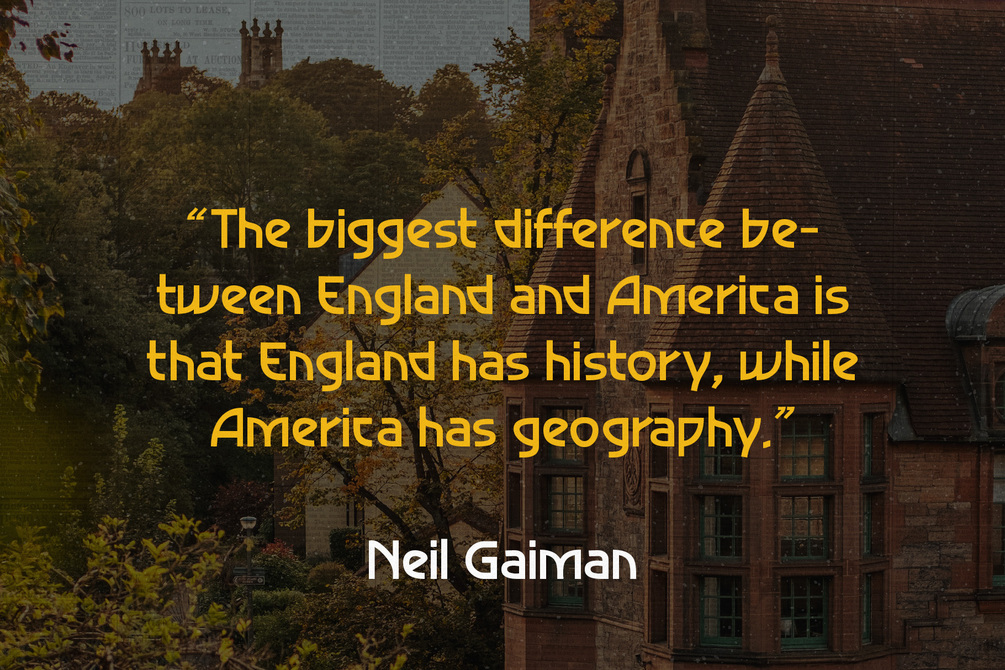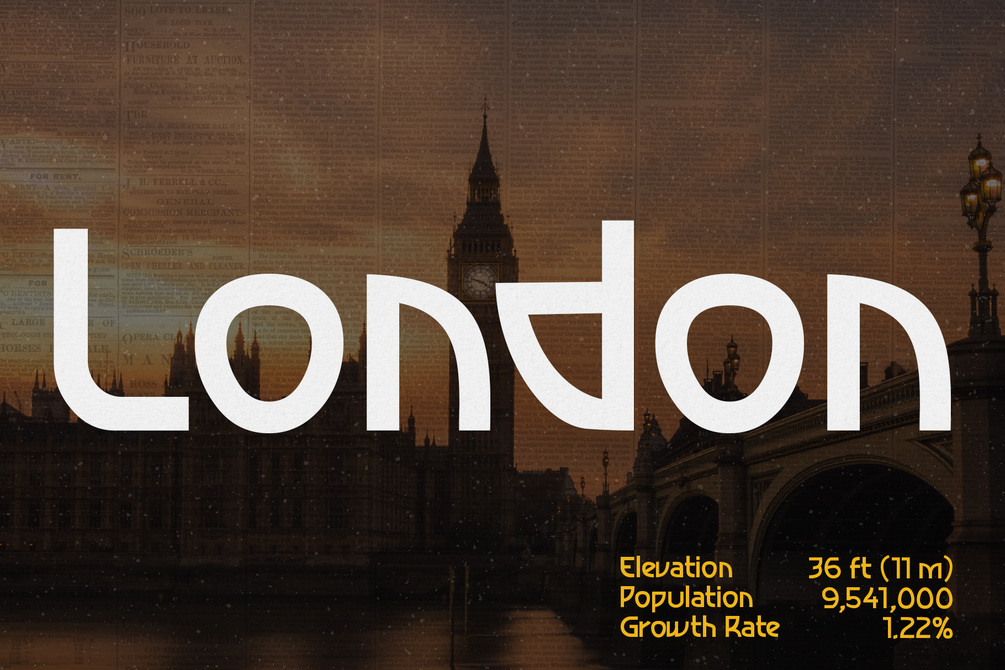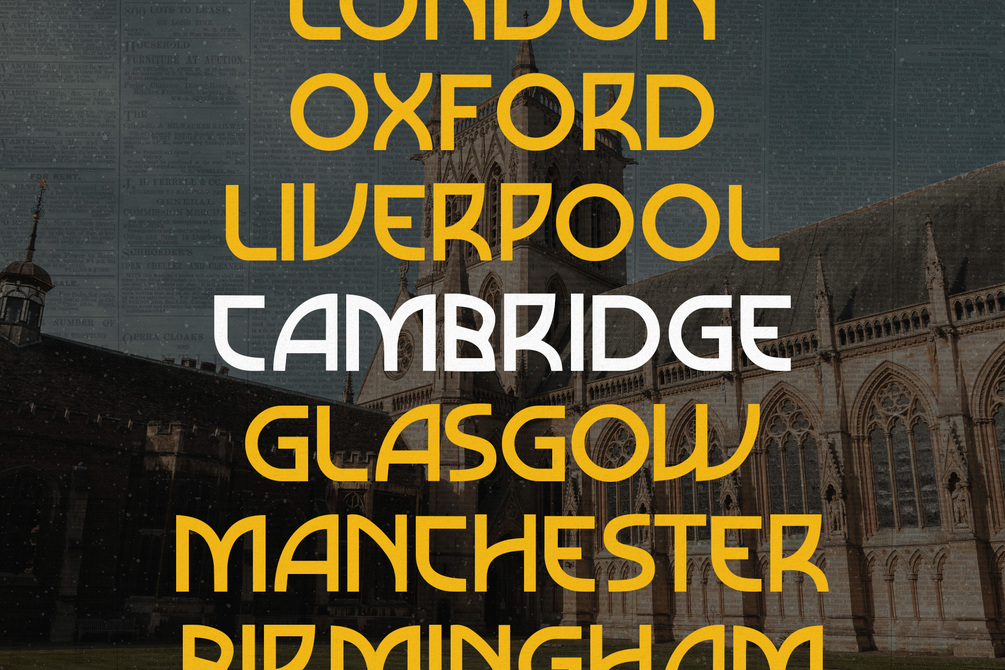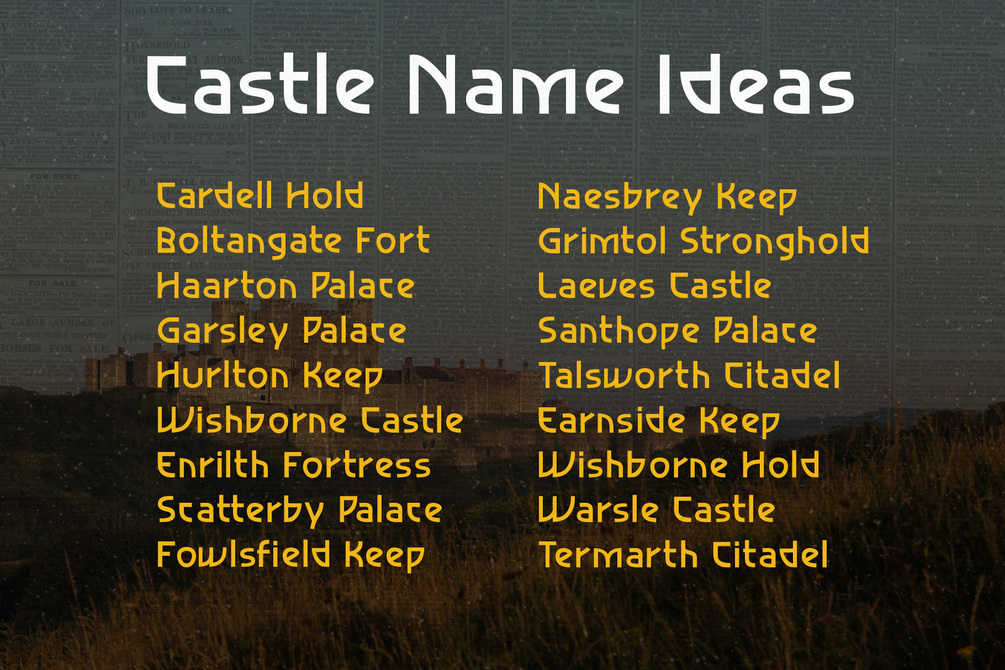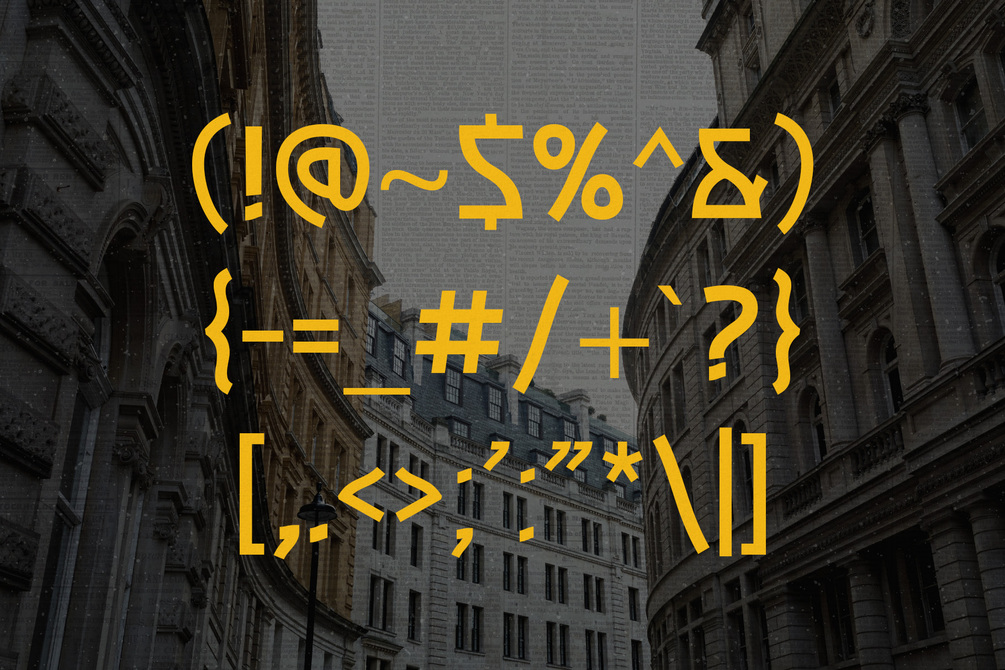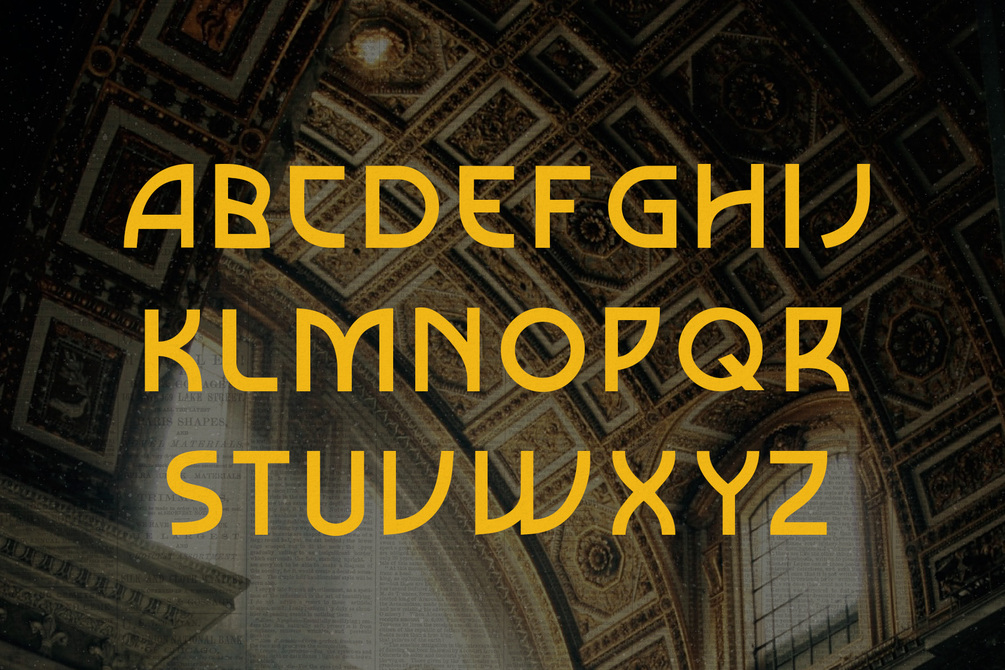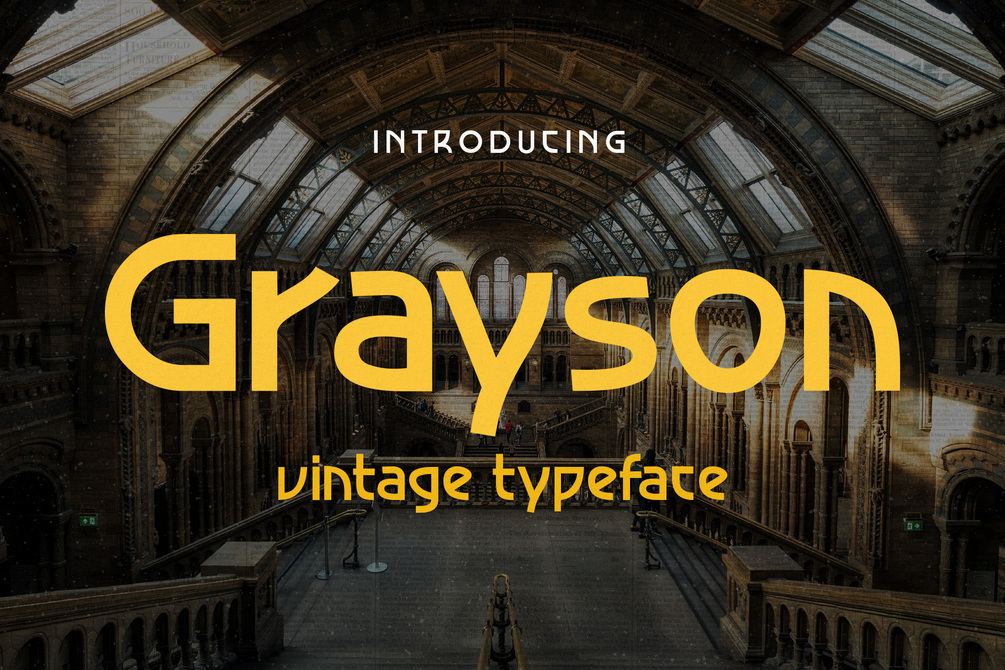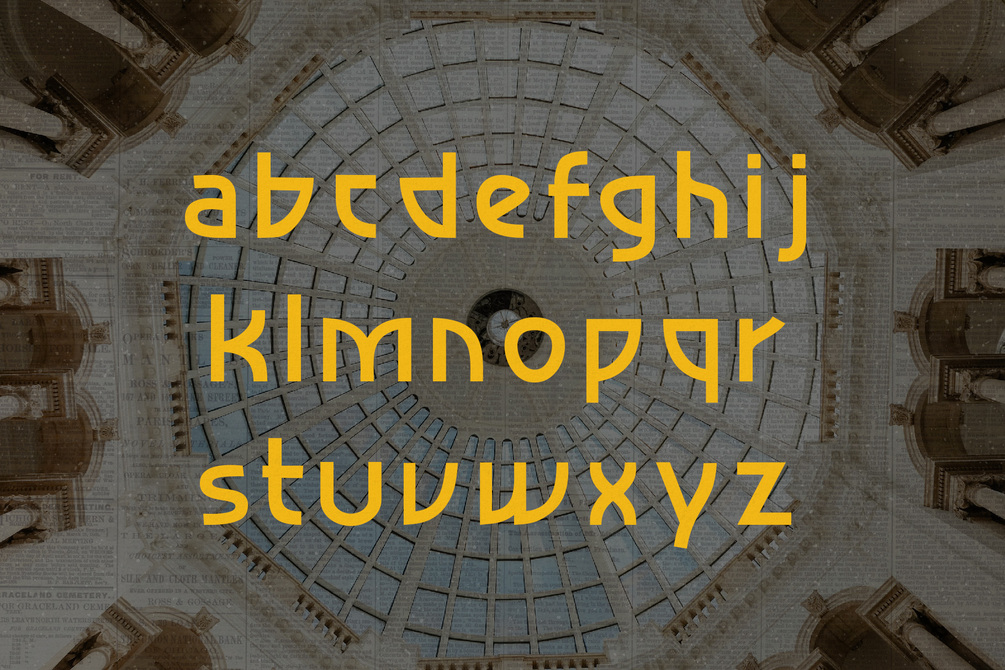
Grayson - 1940s Art Deco Typeface
Grayson is a 1940s art deco typeface. The inspiration came from vintage store signs in London, New York, and other major cities. The font is clean, easy to read, and its letterforms are memorable which makes it perfect for branding. You can use this font for a wide variety of projects, possibilities are endless. The downloads comes with OTF and TTF versions of the font. Enjoy!